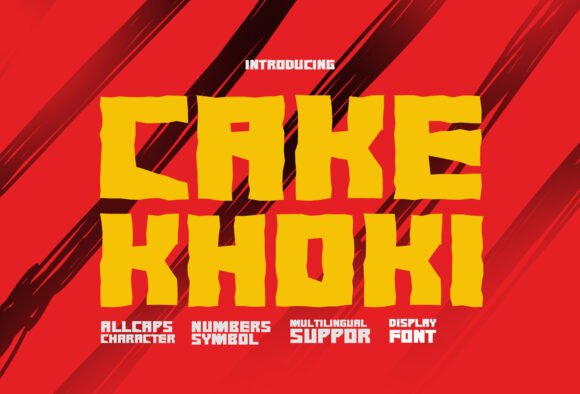
The Ultimate Guide to Cake Khoki Font: Adding a Playful Touch to Your Designs
Have you ever been in the middle of a design project, and suddenly, you just can’t seem to find the right font? I recall a particularly frustrating experience while working on a birthday party invitation for a client’s kid. The design was almost complete, but the font I was using just wasn’t cutting it. The text looked dull and didn’t convey the playful vibe I was going for. That’s when I stumbled upon the Cake Khoki font. It was love at first sight! 🎉
Cake Khoki is a bold and playful font that makes your text stand out. Perfect for fun posters, invitations, and creative projects, its lively letters add a cheerful and eye-catching touch to any design. In this article, we’ll dive into the world of Cake Khoki, exploring its features, how to use it on different platforms, and some similar fonts you might love.
An Honest Review of Cake Khoki Font
What I Love About Cake Khoki ✨
- ✅ Unique and Playful Design: Cake Khoki’s letters are designed to make a statement. They are bold, fun, and full of personality.
- ✅ Highly Versatile: Whether you’re working on a digital project or a print design, Cake Khoki fits right in.
- ✅ Easy to Read: Despite its playful nature, the font remains clear and easy to read, even in larger sizes.
- ✅ OpenType Features: Cake Khoki comes with a range of OpenType features, including stylistic alternates and glyphs, which allow for a high degree of customization.
- ⚠️ Limited Formality: Due to its playful nature, Cake Khoki might not be the best choice for very formal projects or designs that require a more serious tone.
- ⚠️ Overuse Can Be Overwhelming: While the font is stunning on its own, using it excessively or in large blocks of text can be overwhelming.
The Backstory of Cake Khoki Font
Cake Khoki was designed with one goal in mind: to bring a smile to people’s faces. The designer, inspired by the joy of celebrations and everyday moments, crafted a font that embodies playfulness and creativity. Whether it’s a birthday party invitation or a fun social media post, Cake Khoki aims to add that extra sparkle to your designs.
| Font Name | Cake Khoki Font |
| Author | Idealeksis |
Q: What type of projects is Cake Khoki best suited for?
A: Cake Khoki is perfect for fun and creative projects such as party invitations, posters, social media graphics, and any design that requires a playful touch.
Q: Does Cake Khoki support OpenType features?
A: Yes, Cake Khoki comes with a range of OpenType features, including stylistic alternates and glyphs, allowing for a high degree of customization.
Q: Is Cake Khoki easy to read?
A: Despite its playful design, Cake Khoki remains clear and easy to read, making it suitable for both headings and short paragraphs of text.